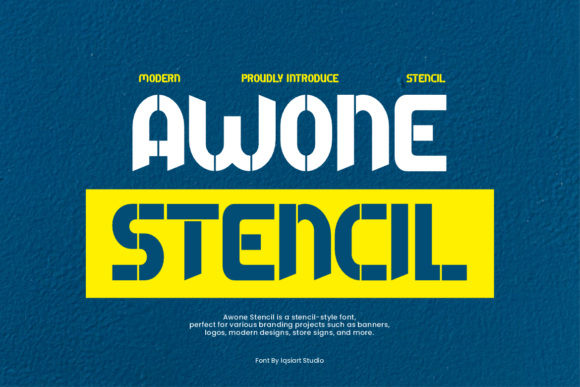
Discover the Cool and Creative Awone Stencil Font
Have you ever been in the middle of a design project, and suddenly, you’re stuck on finding the perfect font? I recall a recent experience where I was working on a craft project, and my client asked for a font that was both modern and industrial. After hours of searching, I stumbled upon the Awone Stencil font, and it instantly became the star of the show! In this article, we’ll dive into the world of Awone Stencil, exploring its features, uses, and some fantastic alternatives.
A Personal Review of Awone Stencil
What I Love About Awone Stencil
- ✨ Unique Stencil Design: Awone Stencil boasts a fresh and modern take on the classic stencil font, making it perfect for creative projects that demand a bit of edge.
- ✅ Highly Versatile: Whether you’re working on a logo, a poster, or a craft project, Awone Stencil adapts seamlessly to various design needs.
- 💡 Excellent for Titles and Headings: The font’s bold and clear design makes it an excellent choice for titles, headings, and any text that needs to stand out.
While Awone Stencil is an amazing font, there are a few minor considerations to keep in mind:
- 🤔 Legibility at Small Sizes: Like many stencil fonts, Awone Stencil can become a bit tricky to read at very small sizes. It’s best used for larger text or titles.
- ⚠️ Limited OpenType Features: While Awone Stencil does offer some basic OpenType features, it may not have the extensive set of alternates or swashes that some other fonts provide.
The Inspiration Behind Awone Stencil
Awone Stencil was designed with the modern creative in mind. Its creator aimed to craft a font that was not only functional but also visually striking. Inspired by industrial stencil designs and modern typography trends, Awone Stencil brings a fresh perspective to the world of stencil fonts.
Q: What type of projects is Awone Stencil best suited for?
A: Awone Stencil is versatile and can be used for a variety of projects, including logos, posters, craft projects, and any design that requires a bold, modern stencil font.
Q: Does Awone Stencil support OpenType features?
A: Awone Stencil offers basic OpenType features, including some stylistic alternates. For more advanced features, you might need to explore other fonts or design tools.